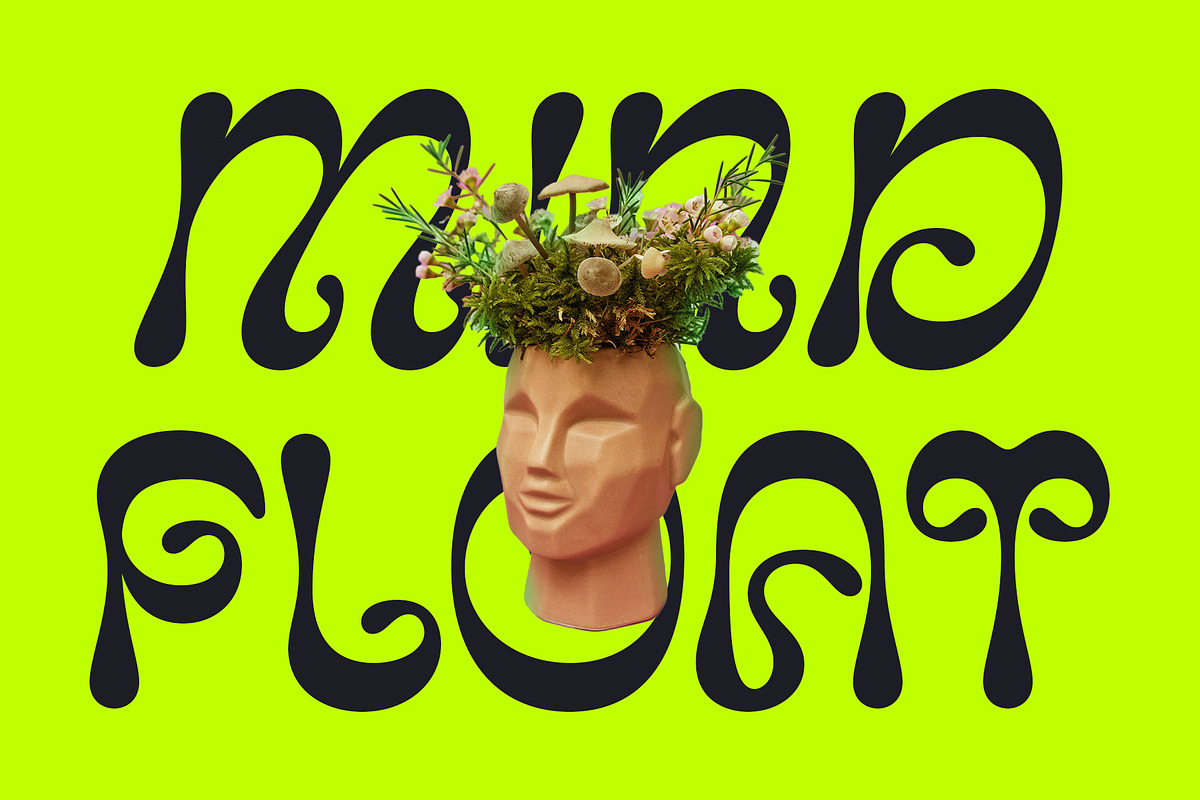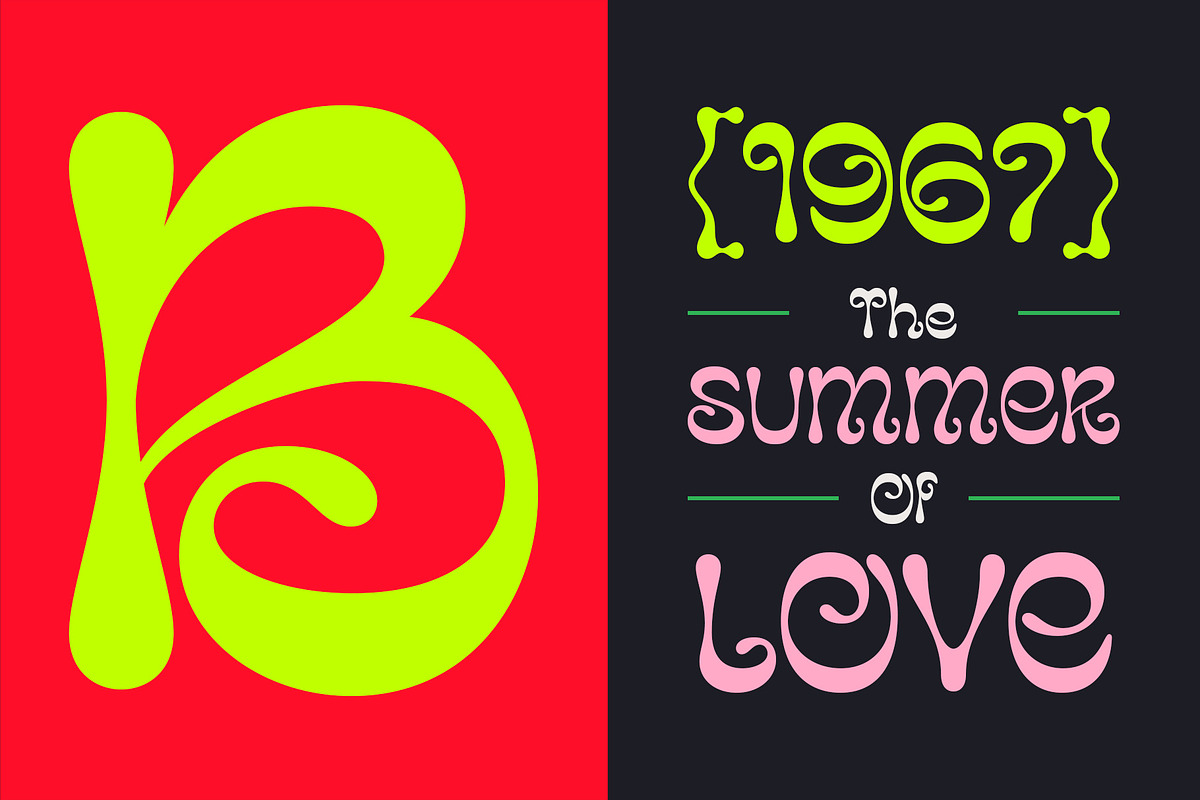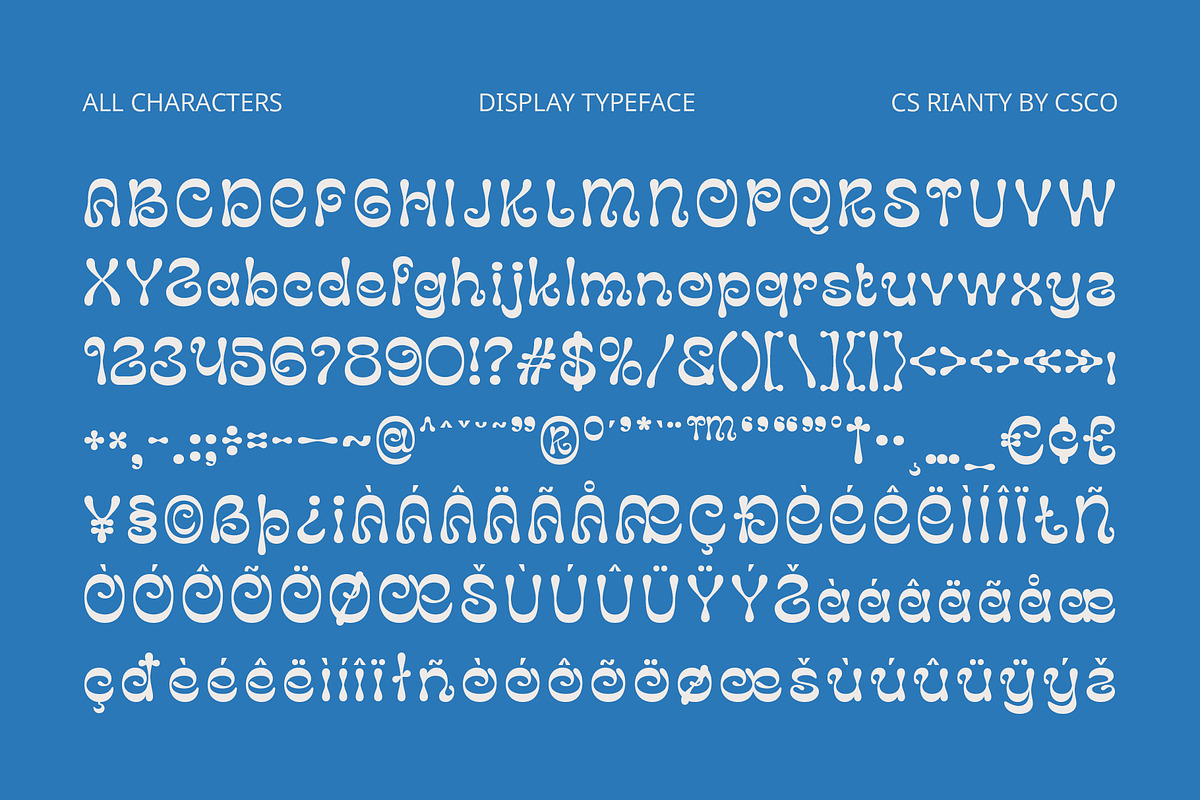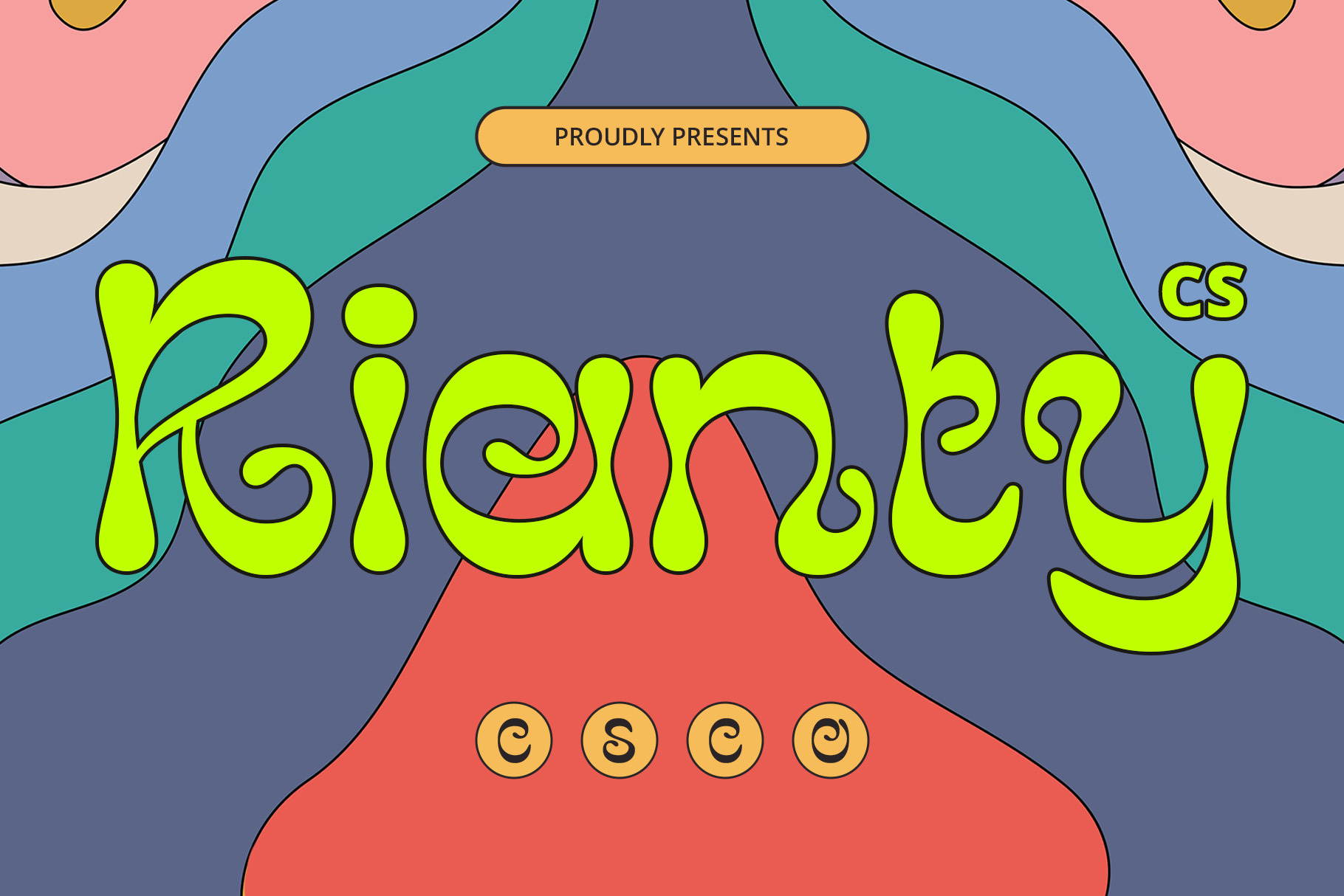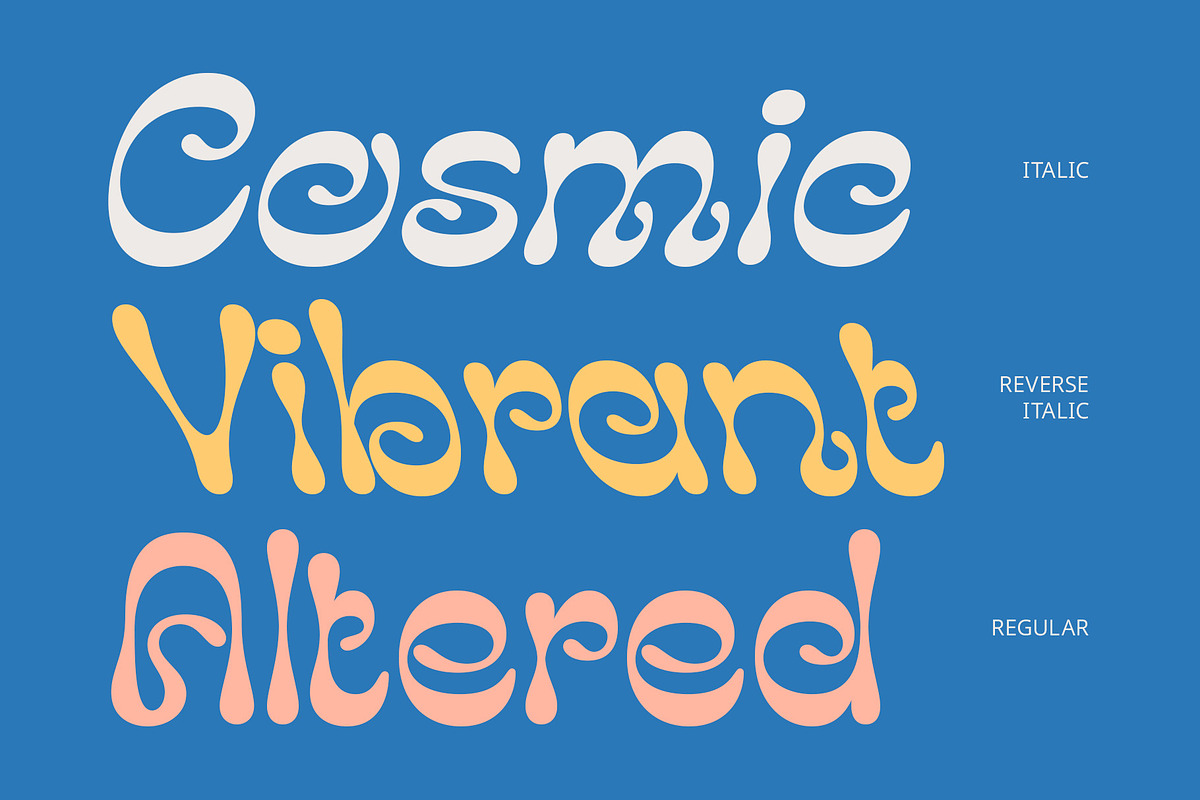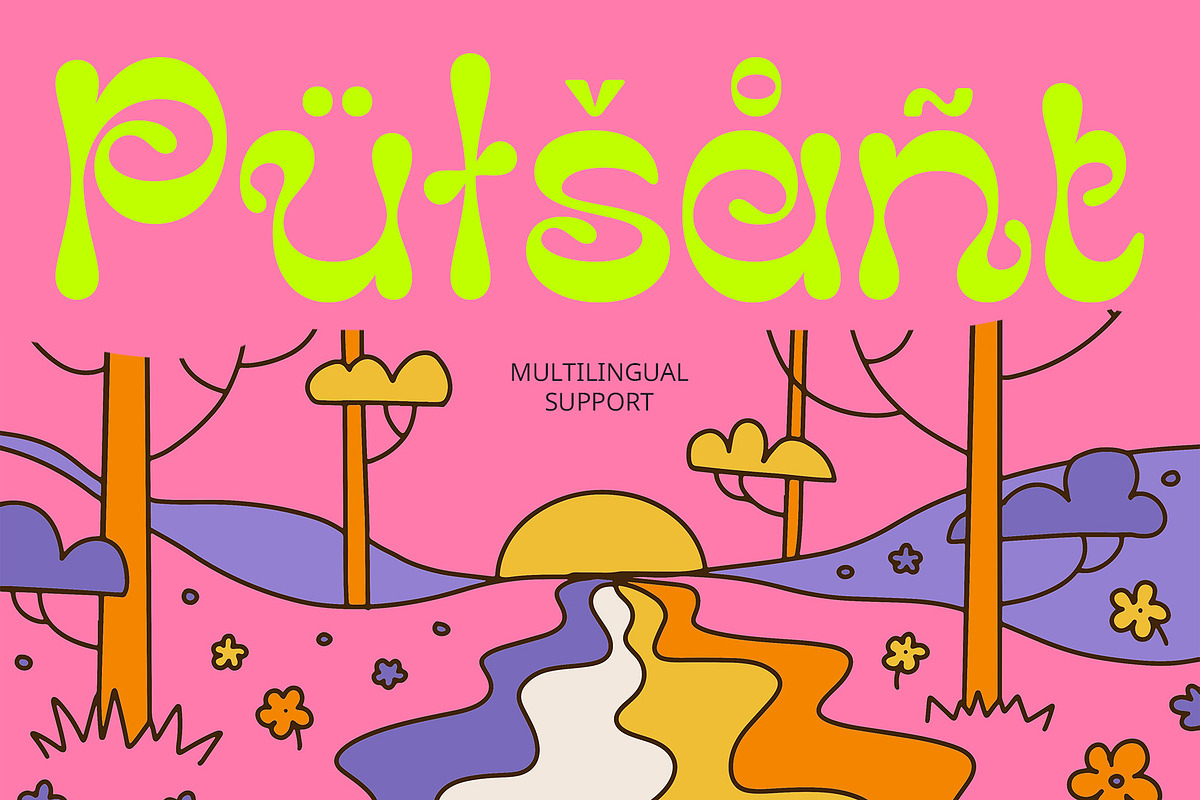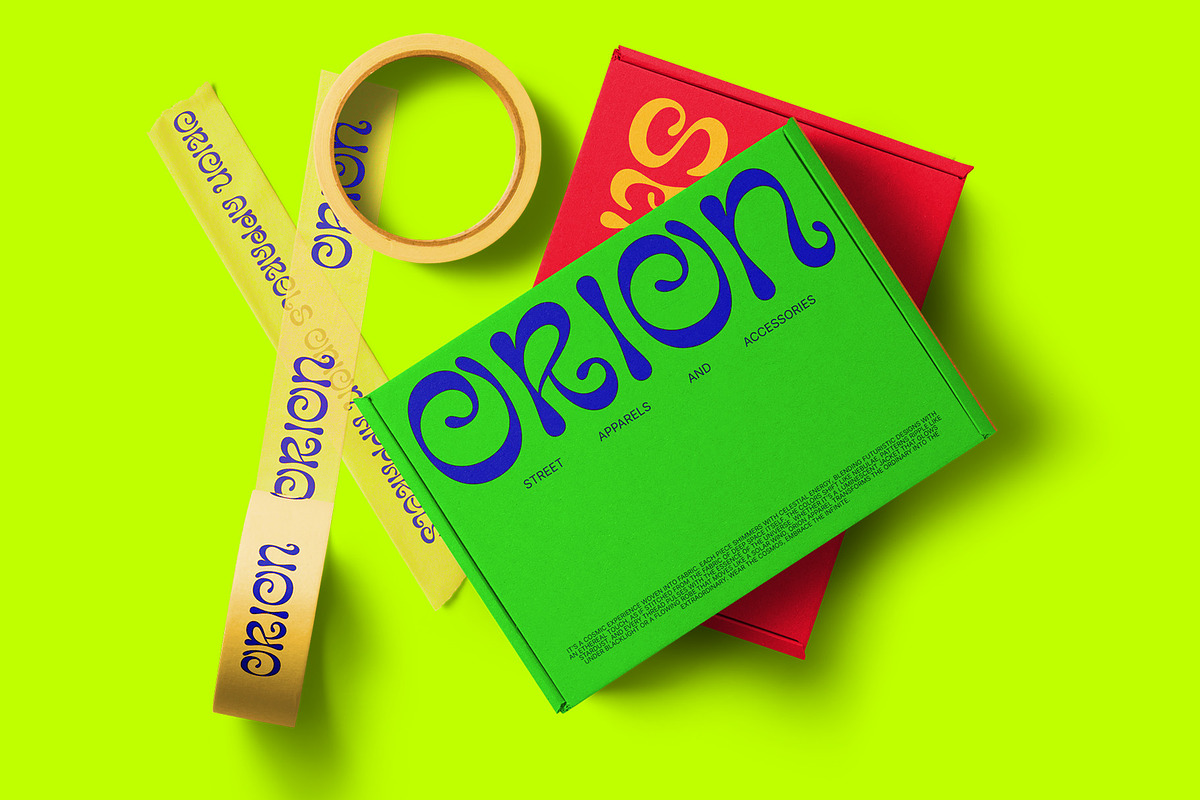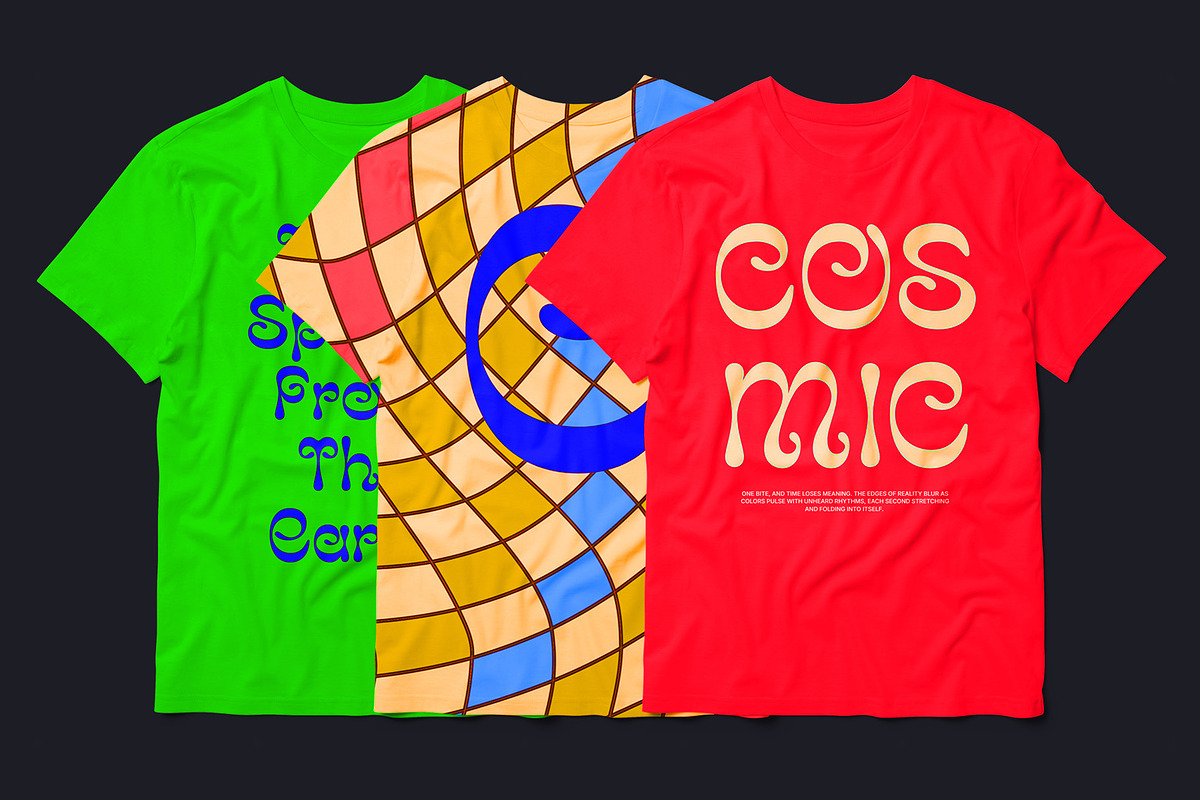
CS Rianty – Trippy Font
CS Rianty – Trippy Psychedelic Display Font
Fluid, Hypnotic, and Unconventional CS Rianty is a modern psychedelic display font designed to bend perception and create visual intrigue. With liquid-like curves, distorted letterforms, and dynamic movement, it delivers a free-flowing, surreal aesthetic that captures the essence of trippy, dreamlike typography.
Energetic and Experimental Vibe This font embodies a funky, bold, and mind-bending energy, making it perfect for posters, music festivals, album covers, and experimental branding. The varying stroke thickness and fluid distortions add to its vibrant, unconventional look, ideal for projects that demand a playful yet rebellious feel.
A Bold Choice for Expressive Designs CS Rianty thrives in creative, high-energy design spaces, bringing a groovy, artistic, and otherworldly touch to everything from psychedelic event promotions to bold editorial layouts. Whether you’re crafting a 70s-inspired throwback or a modern, surreal visual identity, this font ensures a striking and memorable impression.
A Perfect Blend of Retro and Futuristic Psychedelia Inspired by vintage psychedelic aesthetics yet infused with a modern twist, CS Rianty delivers a fusion of nostalgia and contemporary artistic expression. Its hallucinatory, fluid motion effect makes it the perfect font for designers looking to push boundaries, embrace creativity, and evoke a hypnotic visual experience.